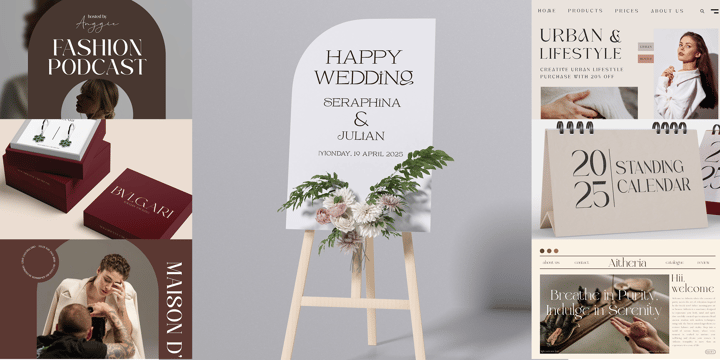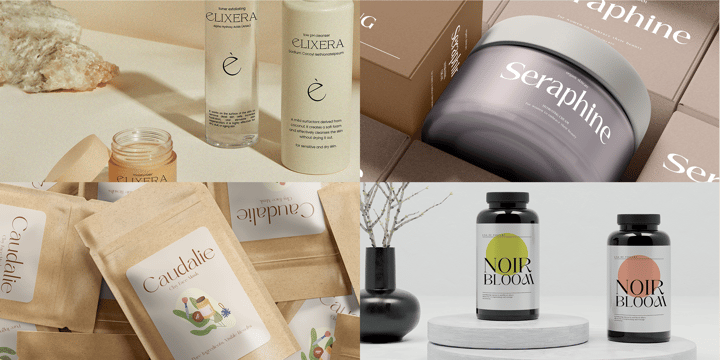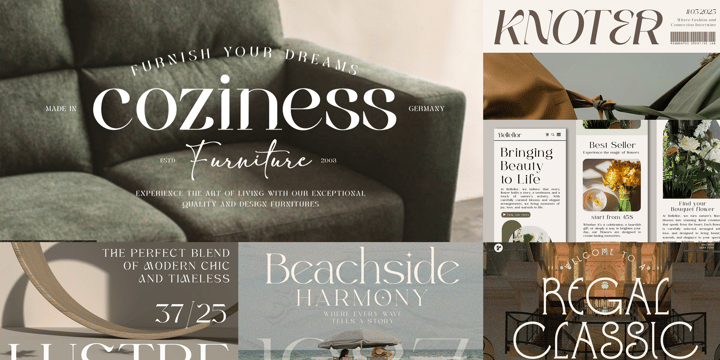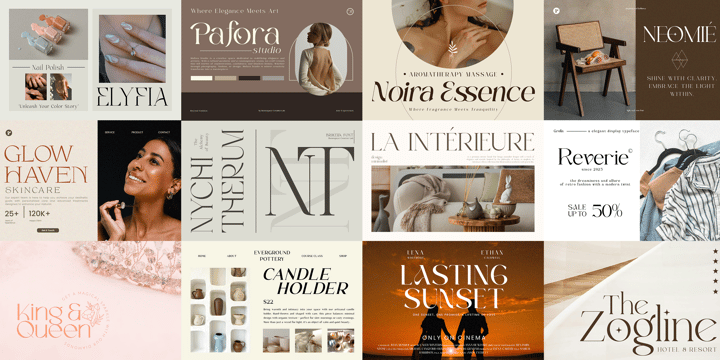
Bundle Modern Elegant
Modern Elegant Font Bundle is a thoughtfully curated collection of 12 original handcrafted serif typefaces by Roomspace Creative Lab, designed to deliver timeless elegance with a modern sensibility. Each typeface in this bundle blends refined proportions, graceful curves, and distinctive details making them ideal for luxury branding, fashion editorials, premium packaging, wedding designs, logos, and high-end visual identities. From bold editorial headlines to delicate logotypes, this bundle offers versatility across a wide range of creative projects while maintaining a cohesive, elevated aesthetic.